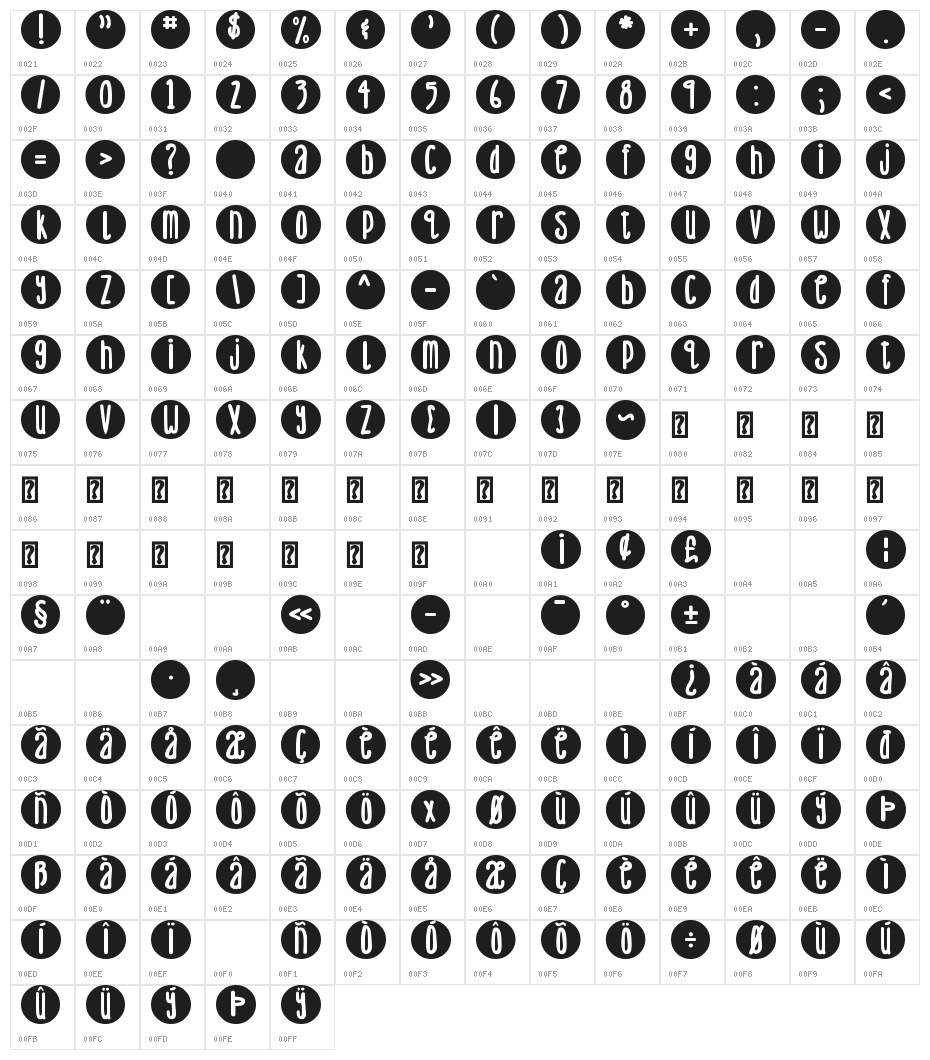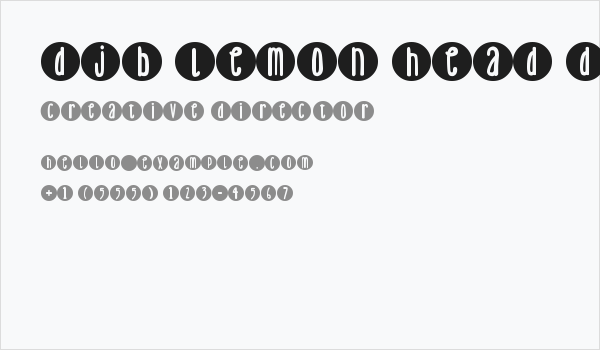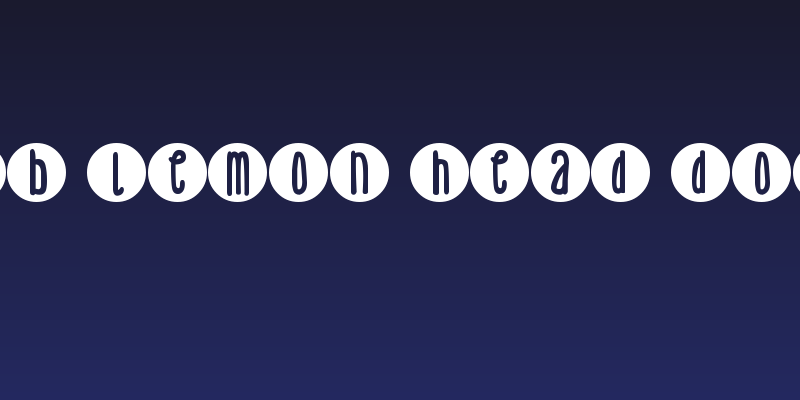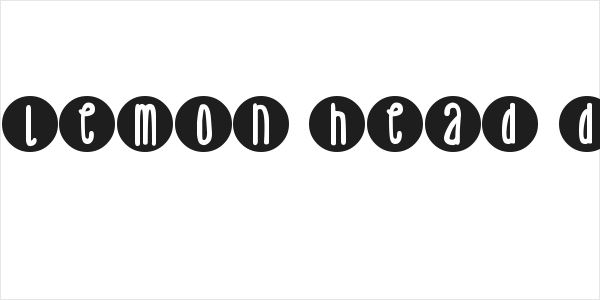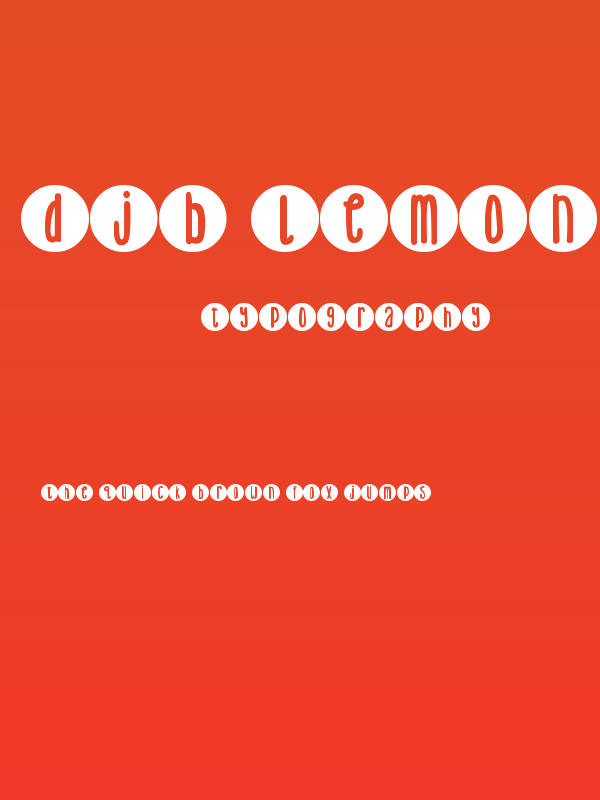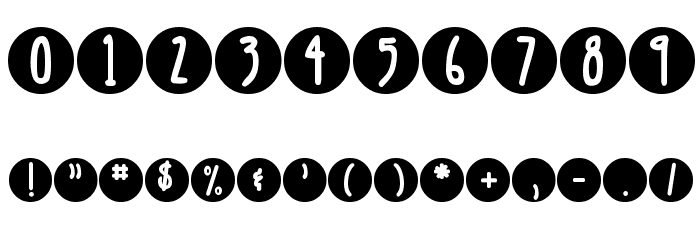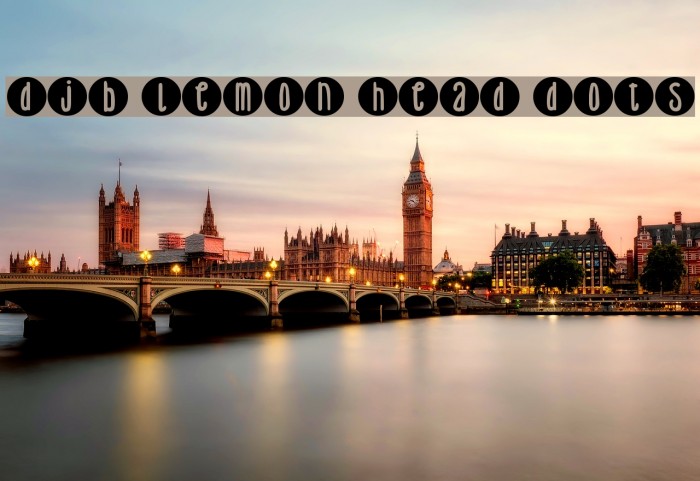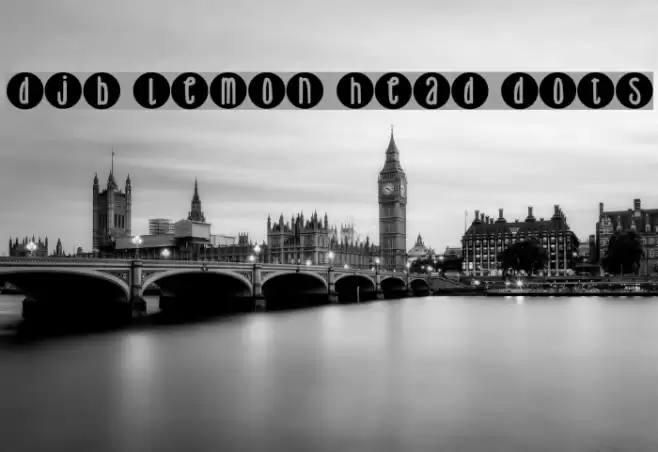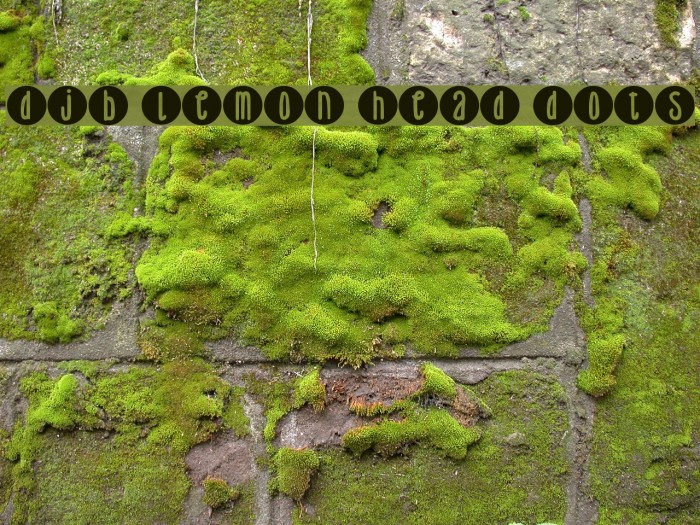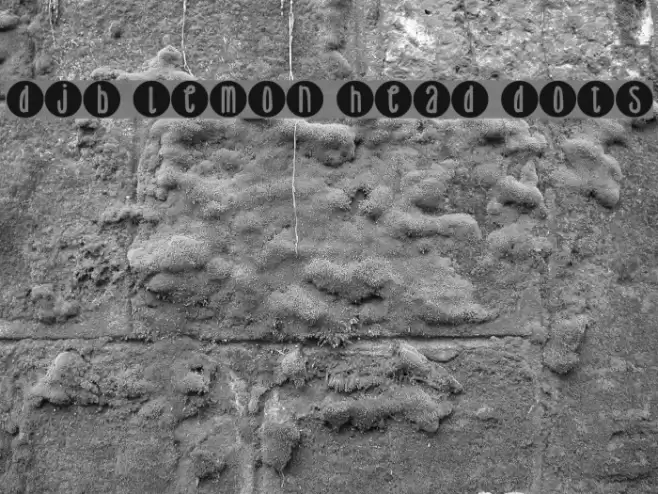
DJB Lemon Head Dots Font
DJB Lemon Head Dots Description
This playful and whimsical font features characters enclosed within circular dots, creating a unique and eye-catching design. Each letter and number is centered within a solid black circle, providing a bold contrast that enhances readability. The characters themselves are sans-serif with a slightly rounded and casual appearance, adding a friendly and approachable feel. The consistent circular backdrop gives the font a cohesive and uniform look, making it ideal for designs that require a touch of fun and creativity. The special characters maintain the same style, ensuring a harmonious overall appearance.
| Overall Style | Playful, Whimsical |
| Proposed Projects | Ideal for children's books, playful branding, party invitations, and creative posters. |